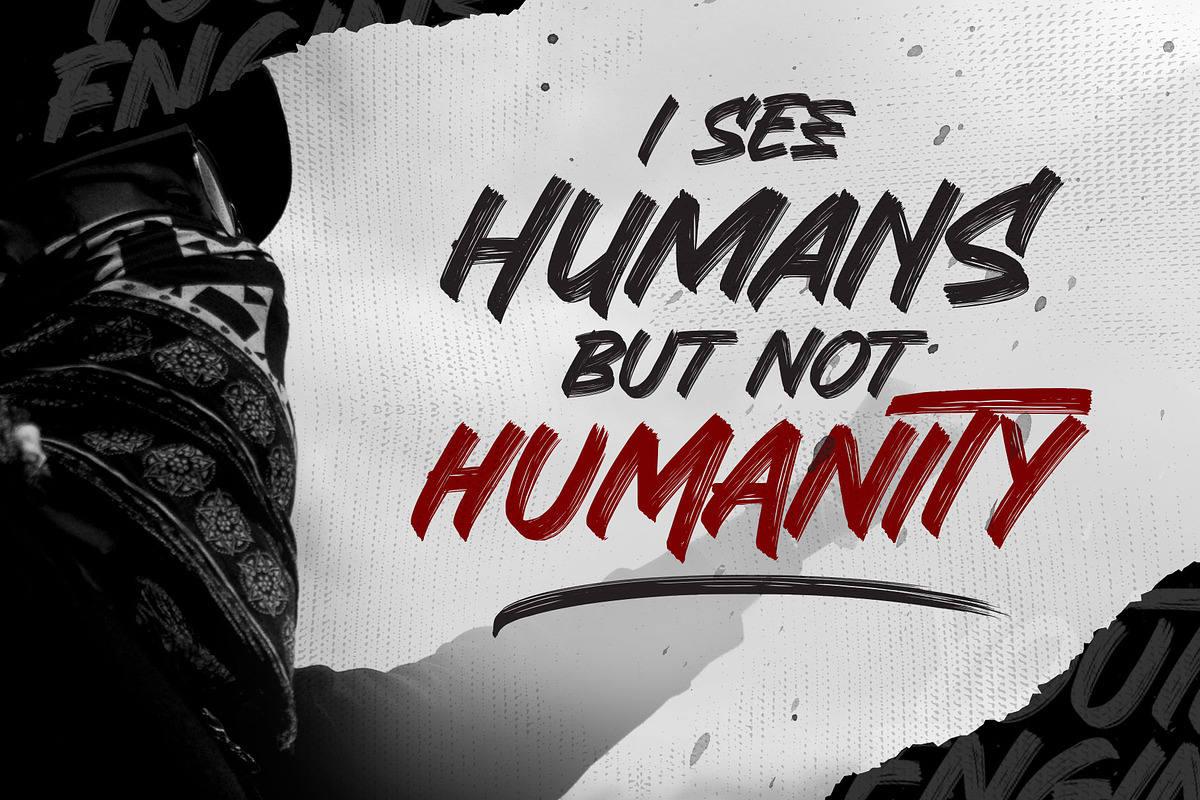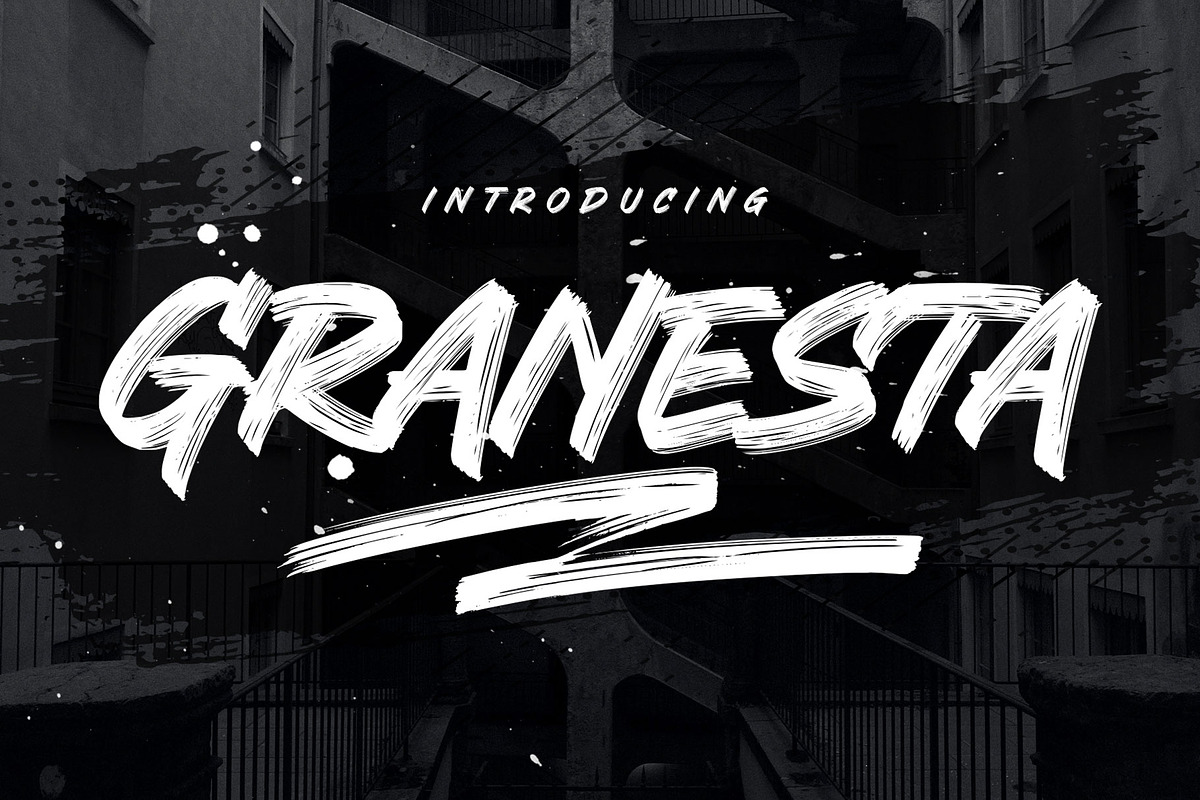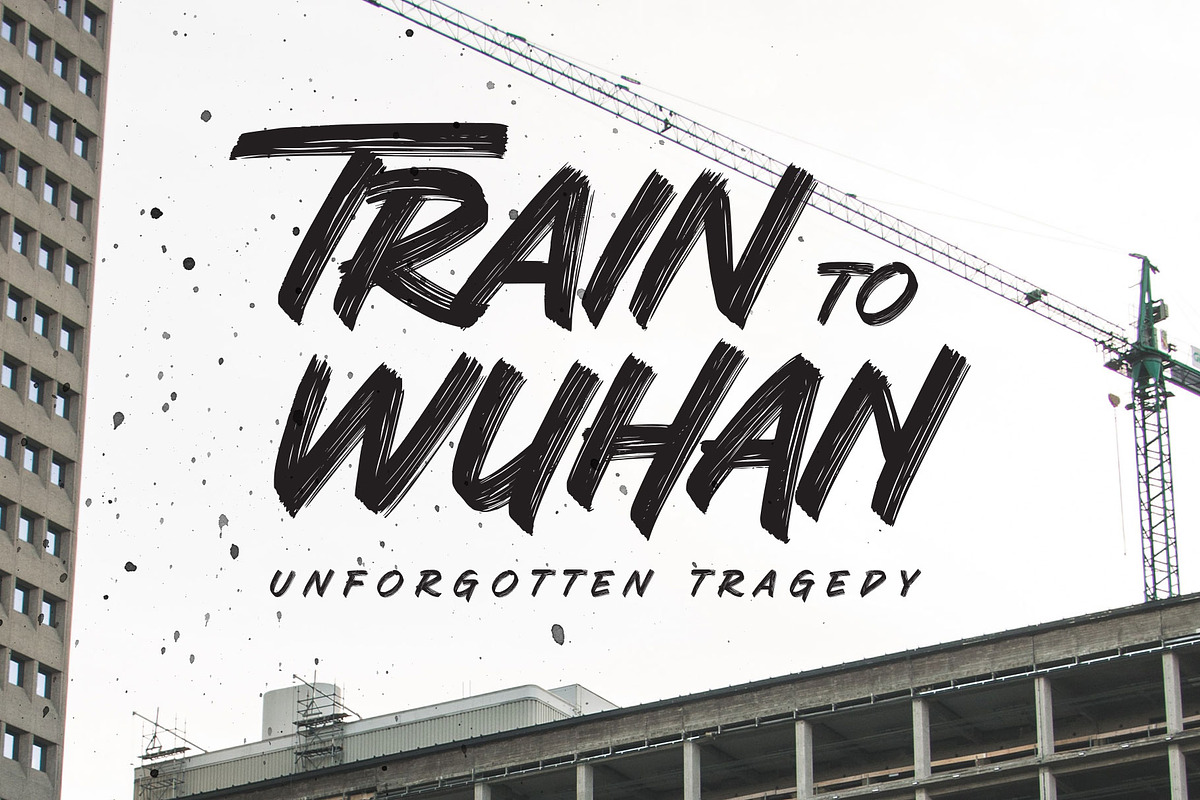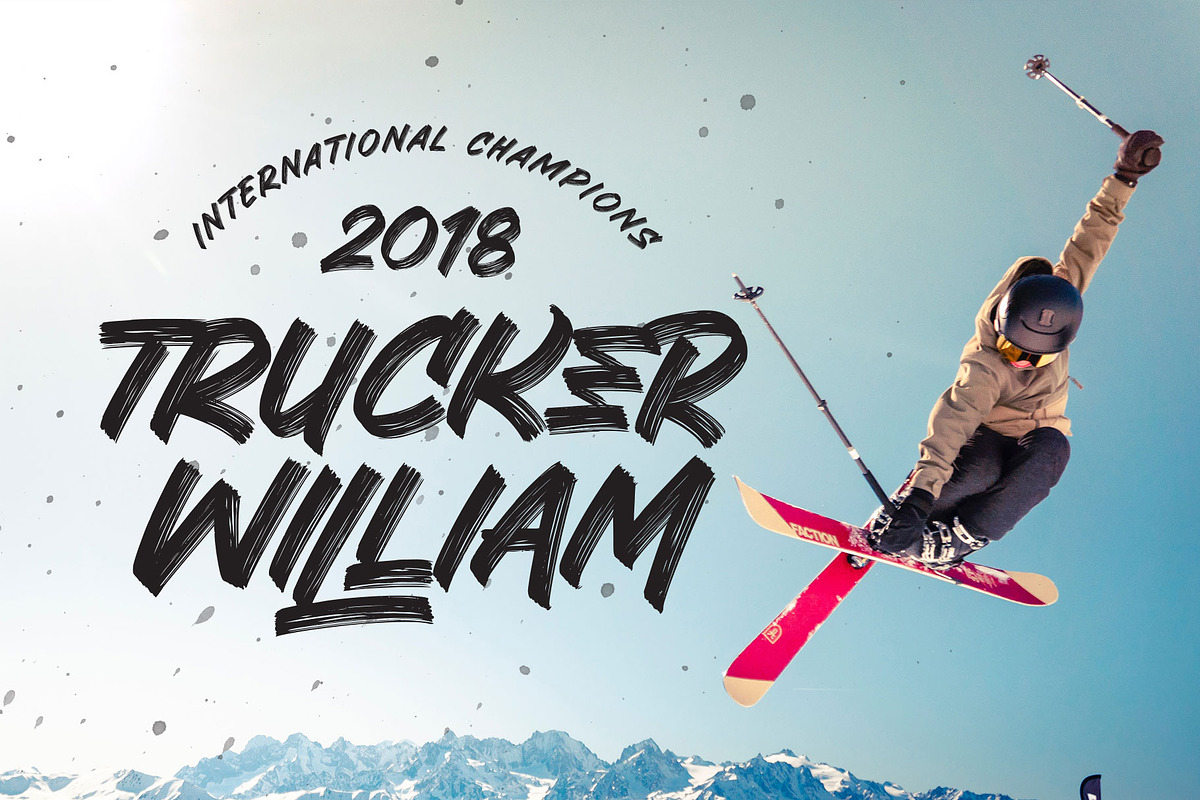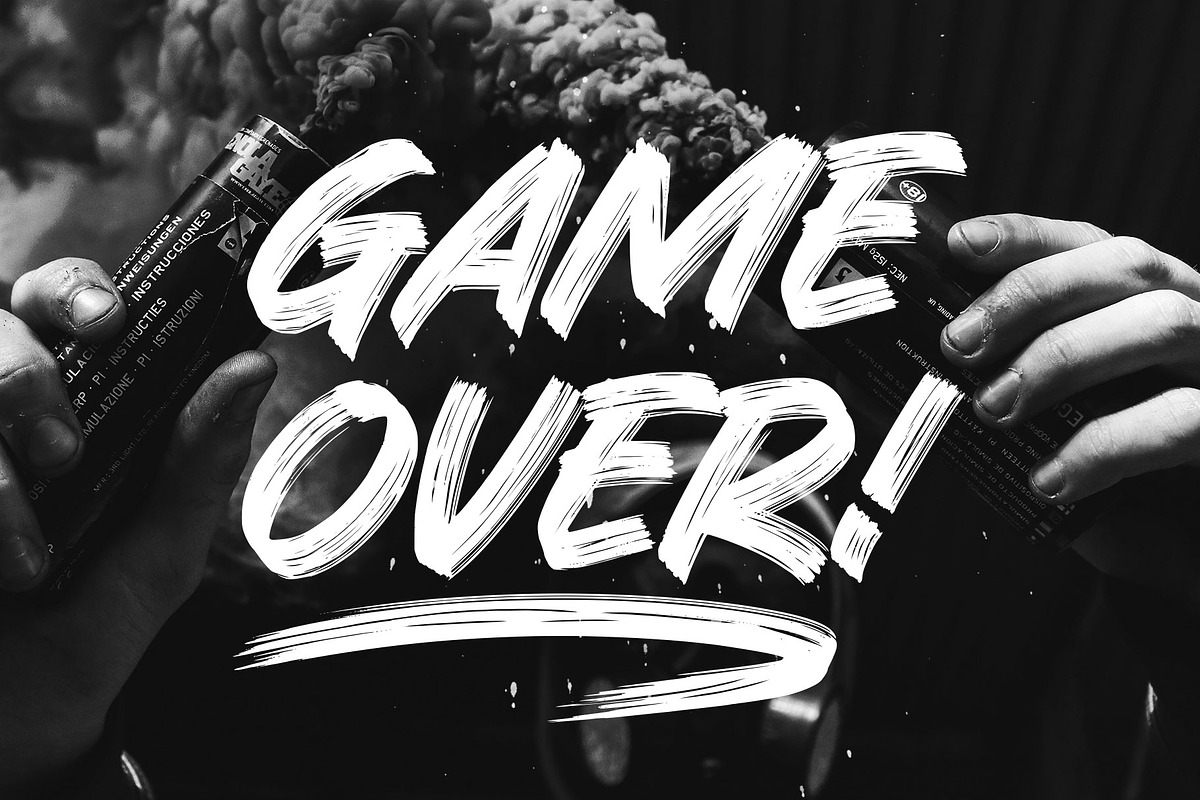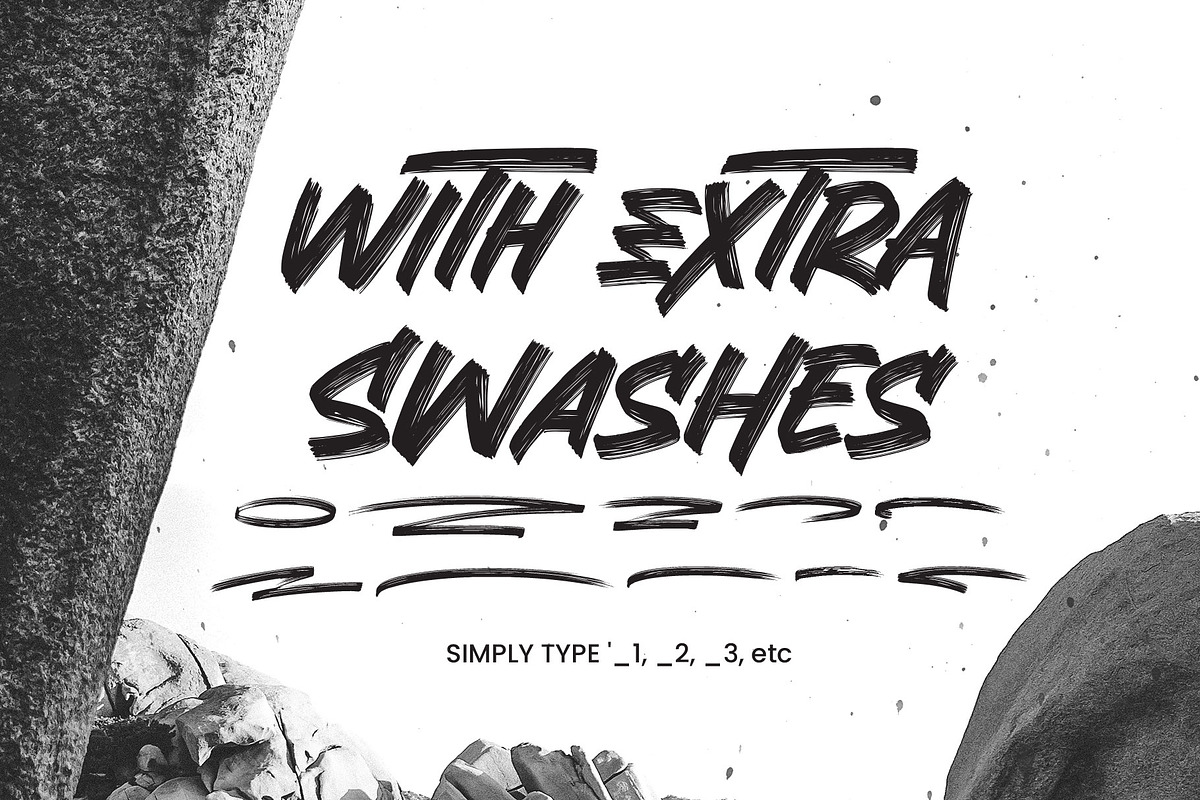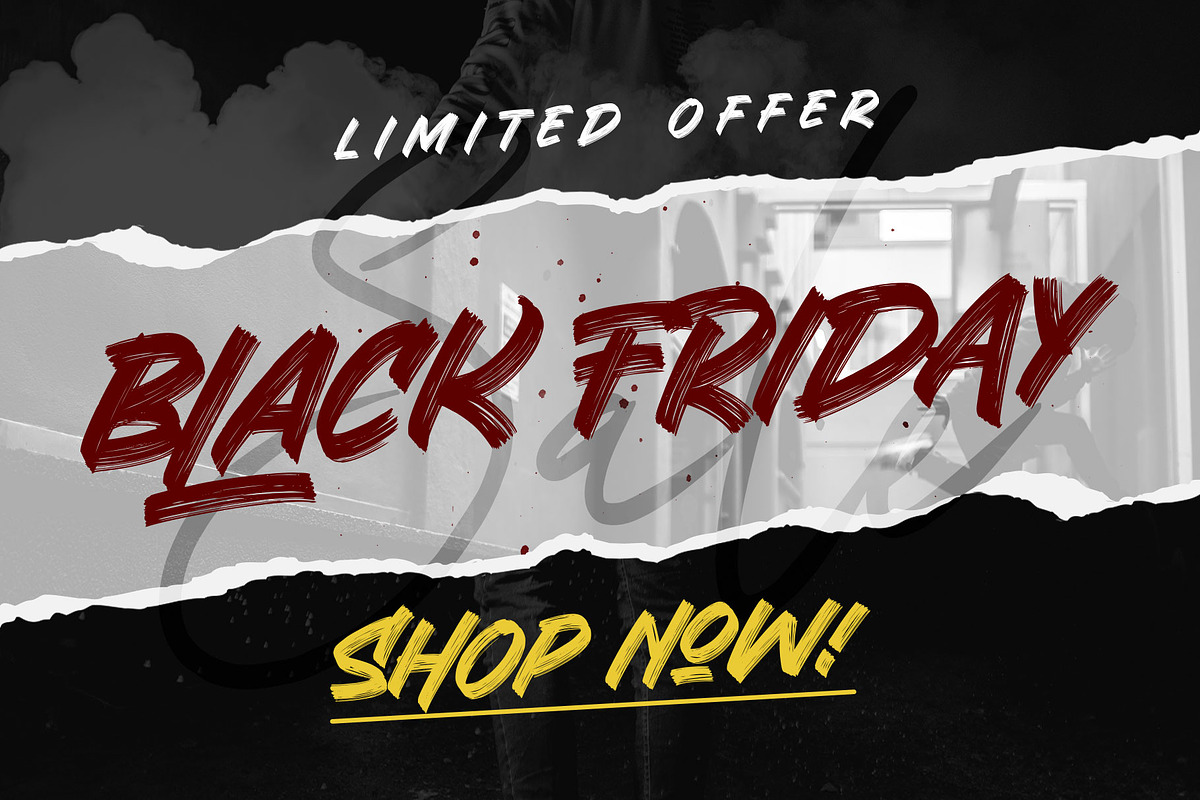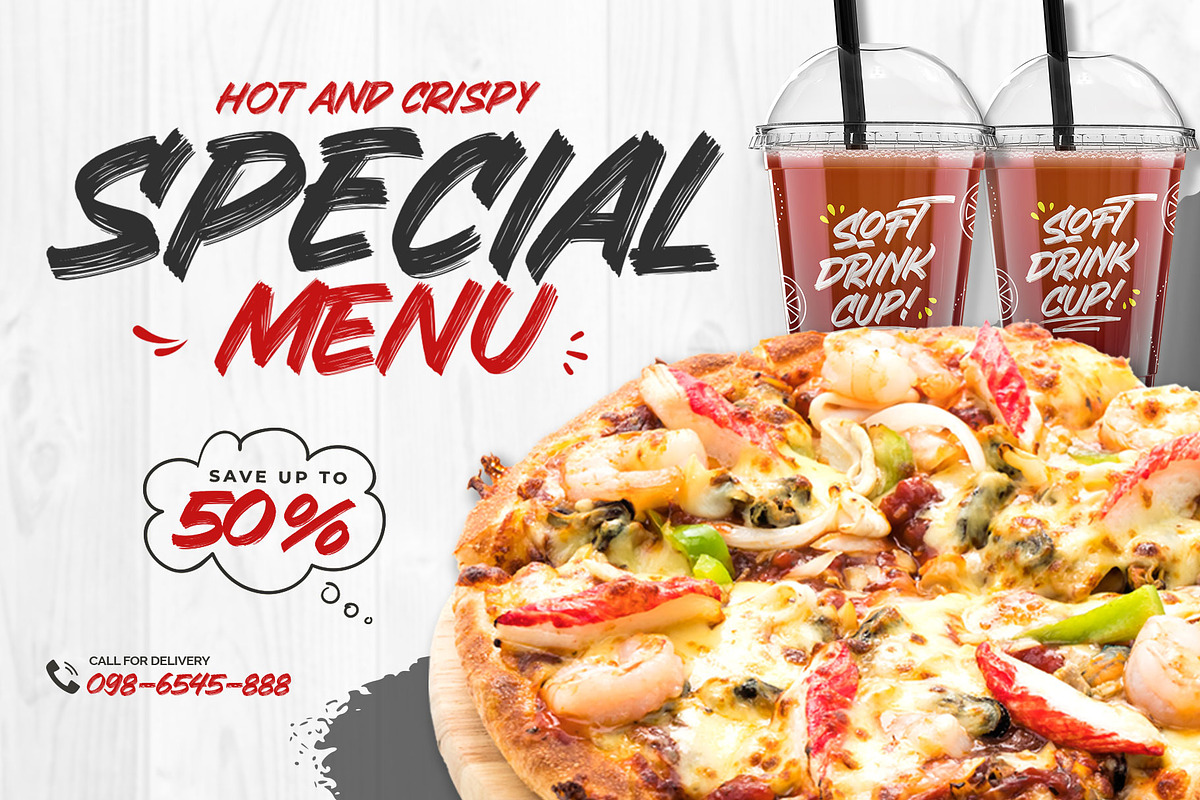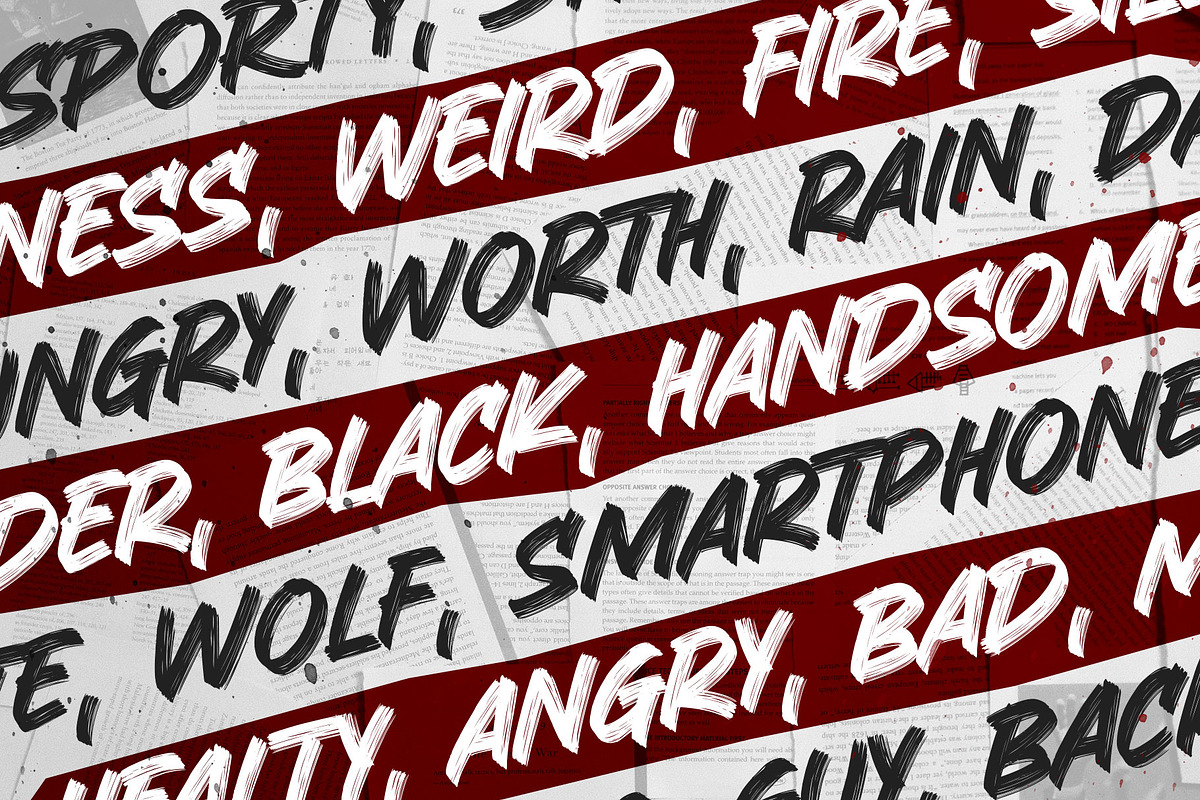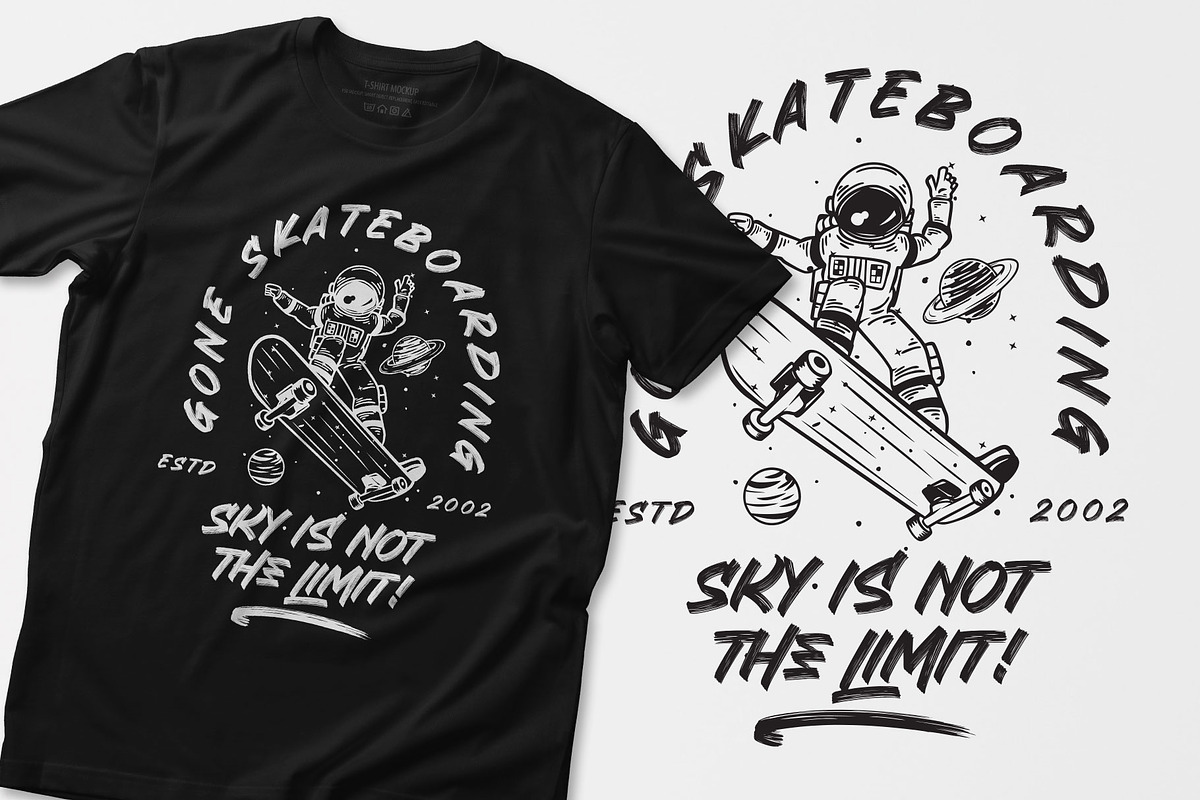
Granesta - Freestyle Brush
Introducing Granesta, a freestyle brush font moving with energy. This font was created with digital brush strokes, carefully vectorized to keep the textures. Granesta is a street font that delivers a loud message and strong.
This font is an all-capitals font, equipped with stylistic alternates and swashes to gives a more powerful design. Granesta is ideal for logos, merchandise, apparel, banner, quotes, books, social media posts, posters, flyers, stickers, and many more!
- Smallcaps
- Stylistic alternates
- Swashes (simply type underscore + number. eg. _1, _2, _3, etc)